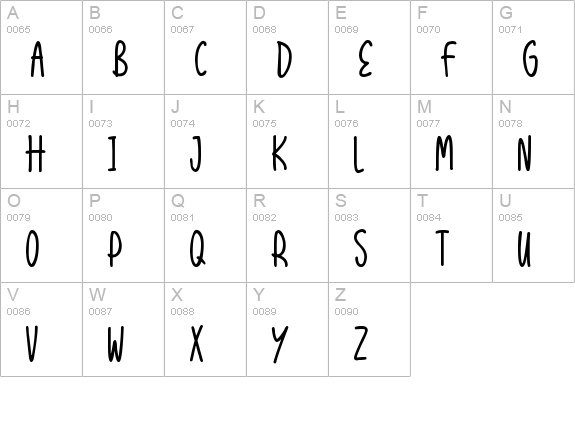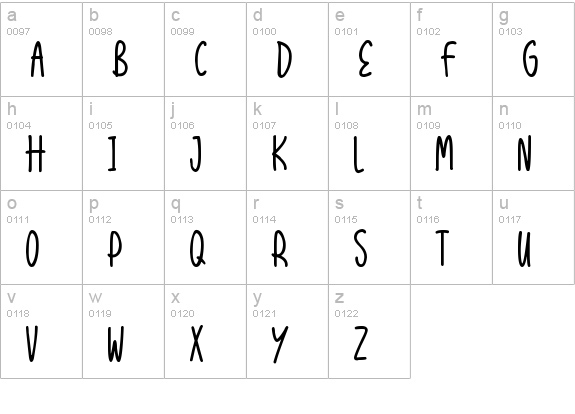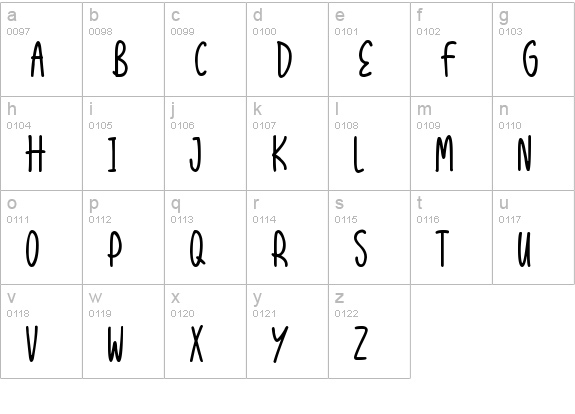
Express Yourself Font Details
Express Yourself is a free for personal use font in the Script > Handwritten category, designed by Darrell Flood. It has been downloaded 53 times and is available for Windows, Mac and Linux.
Express Yourself font is a stylish and modern typeface that exudes creativity and individuality. With its unique and eye-catching design, this font is perfect for making a statement and adding a touch of personality to your projects. Whether you're working on a logo, poster, or social media graphic, Express Yourself font is sure to make a bold impression.